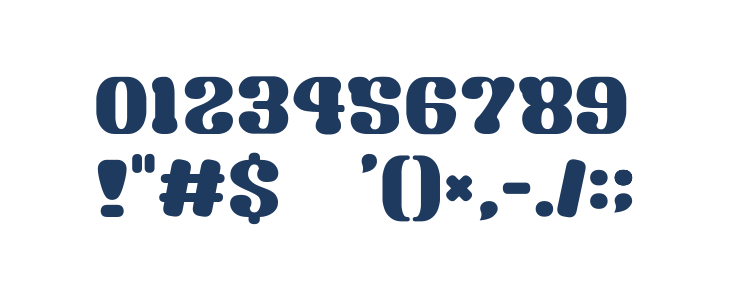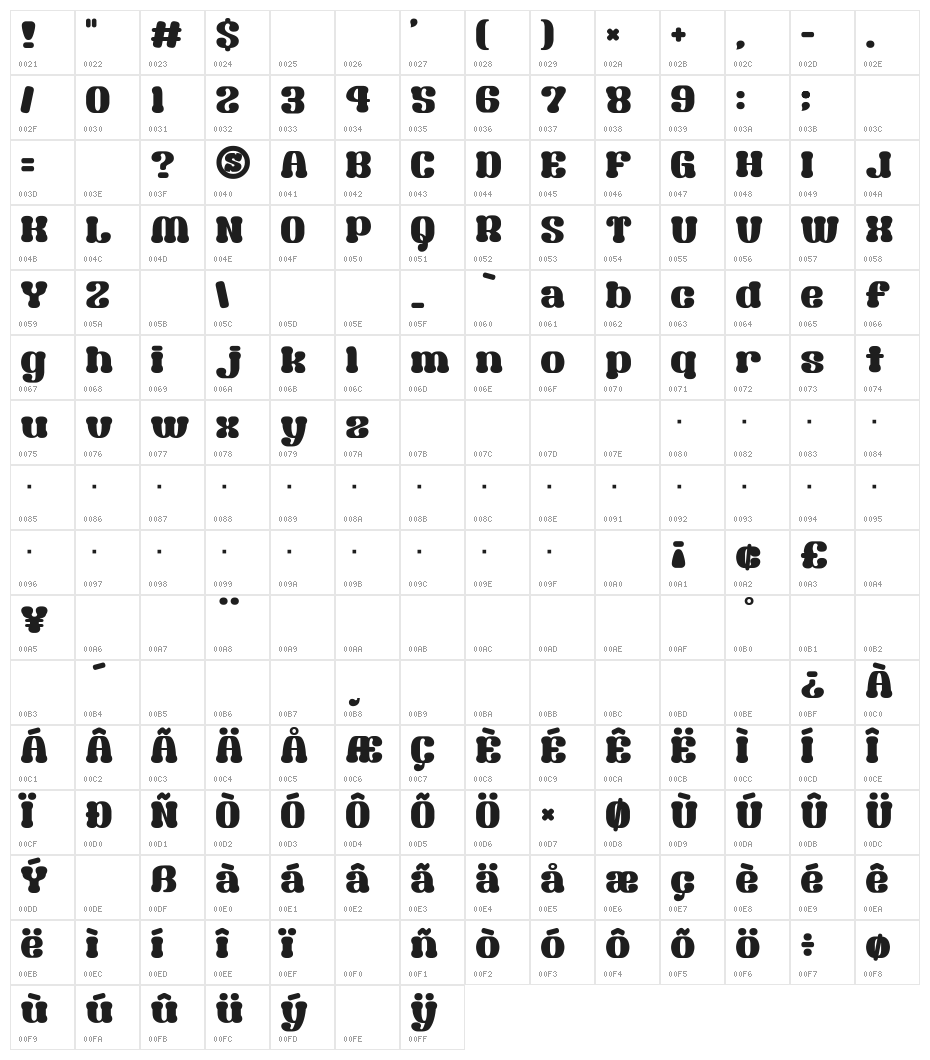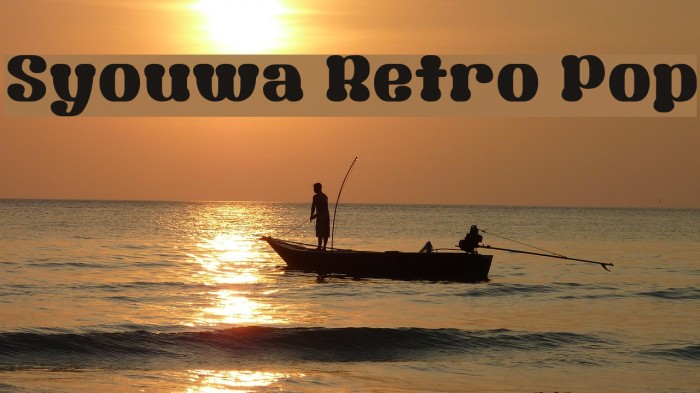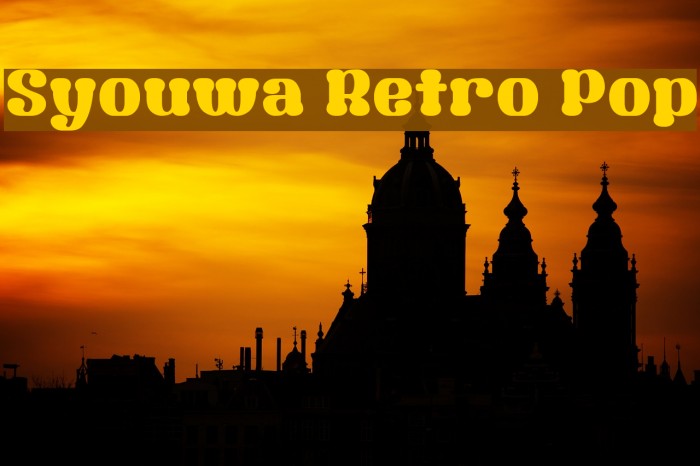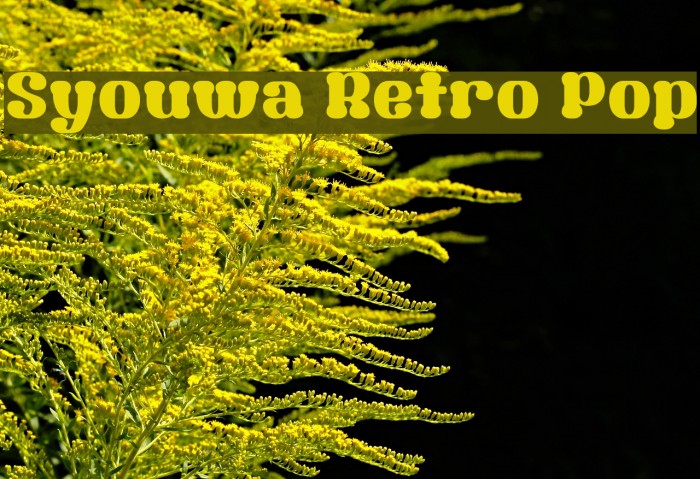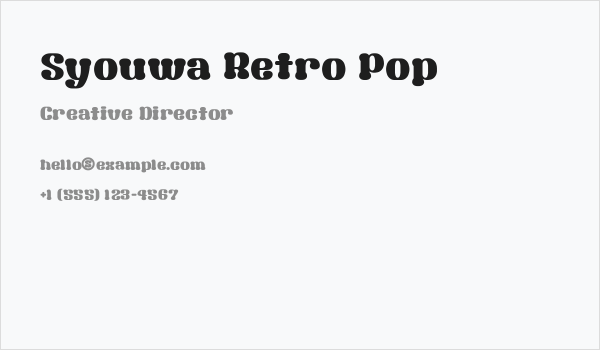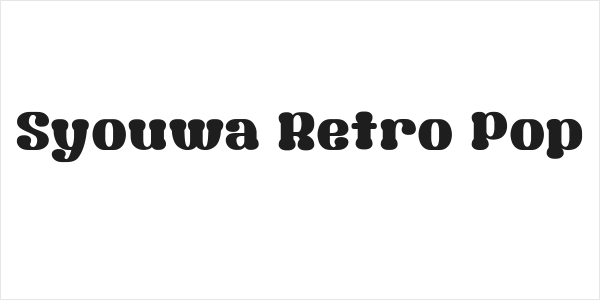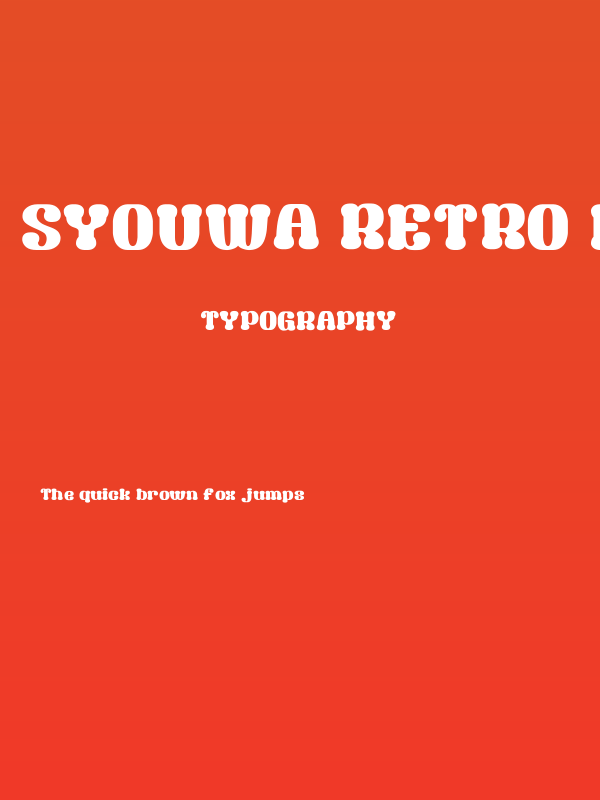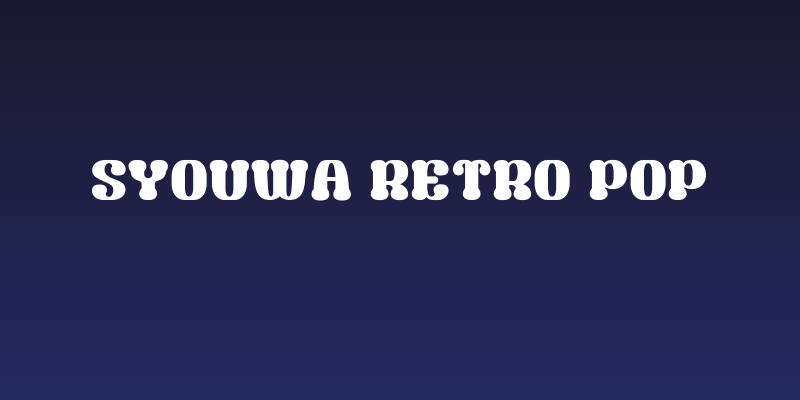
Syouwa Retro Pop Font
Syouwa Retro Pop Description
This font features a bold, playful design with a distinctly retro aesthetic. The characters are rounded and thick, with a bubbly appearance that evokes a sense of fun and nostalgia. The uppercase and lowercase letters maintain a consistent style, with exaggerated curves and a uniform thickness throughout. Numbers and special characters follow the same design principles, ensuring a cohesive look across all text. The font's unique style makes it ideal for projects that require a vintage or playful touch.
| Overall Style | Retro, Playful |
| Proposed Projects | Ideal for vintage-themed posters, playful branding, retro advertisements, and eye-catching headlines. |